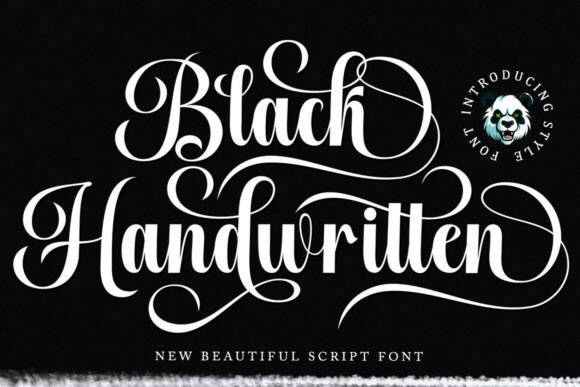
The Magic of Black Handwritten Font: A Designer’s Delight
I’ll never forget the time I was working on a wedding invitation project, and my client asked for a font that exuded elegance and romance. I scoured the internet, trying out font after font, but nothing seemed quite right. That was until I stumbled upon Black Handwritten Font. It was like a breath of fresh air – the perfect blend of calligraphy and sophistication. In this article, I’ll share my love for this beautiful script font and provide a comprehensive guide on how to make the most of its stunning features.
- ✨ Beautiful alternate characters that add a touch of elegance to any project
- ✅ Sophisticated and romantic style that’s perfect for wedding invitations, branding, and more
- 💫 Elegant calligraphy that adds a personal touch to any design
- 🎨 Highly versatile and can be used for a wide range of creative projects
While Black Handwritten Font is a stunning addition to any design project, there are a few things to keep in mind:
- ⚠️ Some characters may require manual adjustment to ensure proper kerning and spacing
- 🤔 Limited use of uppercase letters, which may require creative workarounds for certain designs
Black Handwritten Font was designed with the intention of capturing the essence of elegant calligraphy. The font’s creator was inspired by the beautiful, flowing scripts of the past, and sought to bring a touch of sophistication and romance to modern design. With its stunning alternate characters and elegant style, it’s no wonder that Black Handwritten Font has become a favorite among designers and crafters.
Q: What is Black Handwritten Font?
A: Black Handwritten Font is a beautiful script font that combines calligraphy with an elegant style. It’s perfect for branding, wedding invitations, and other romantic projects.